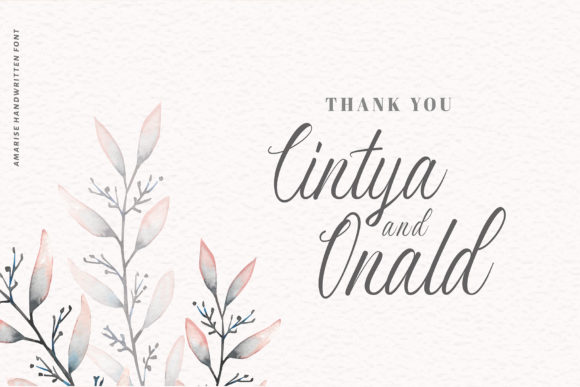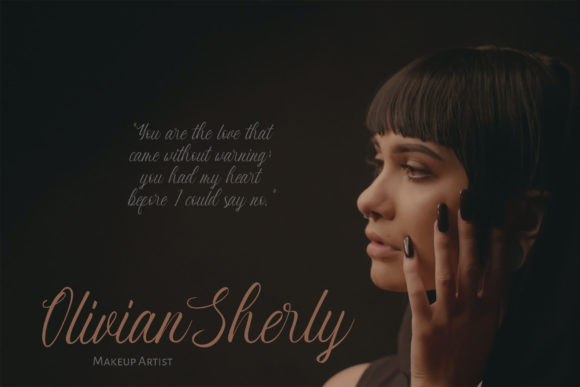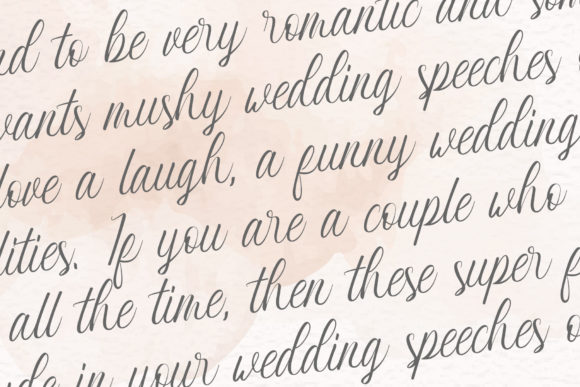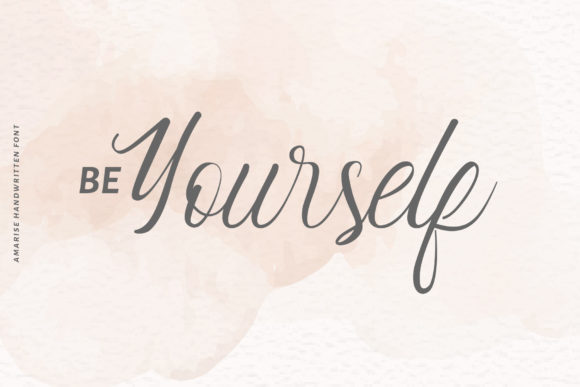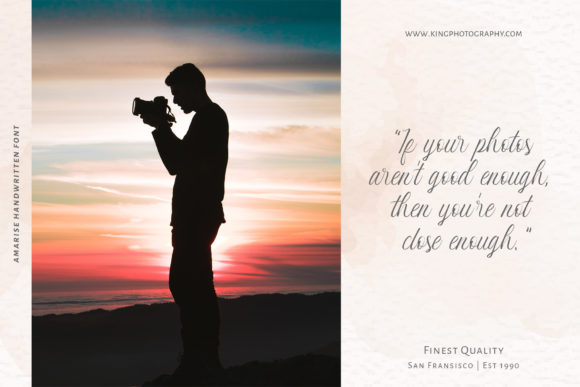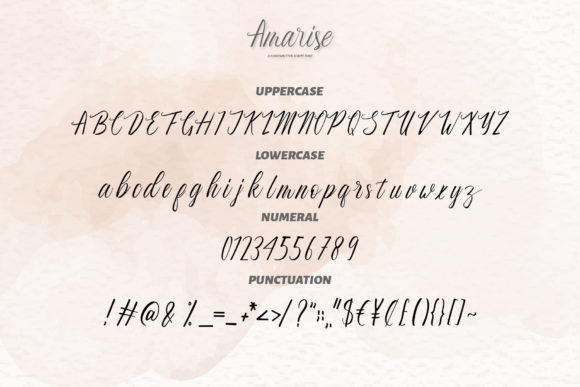
Introducing Amarise Font: Elevate Your Designs with Elegance and Sophistication
In the world of typography, a font can make or break a design. For designers and crafters looking to add a touch of elegance and sophistication to their projects, Amarise Font is an excellent choice. This stylish and dainty script font is perfect for a wide range of applications, from logos and branding projects to labels, photography, watermarks, and special events.
The Characteristics of Amarise Font
Amarise Font is a beautifully crafted script font that exudes refinement and poise. Its delicate strokes and intricate details make it an ideal choice for designers seeking to create visually stunning projects. Here are some of the key characteristics that make Amarise Font stand out:
- Stylish and Dainty: Amarise Font boasts a stylish and dainty appearance, making it perfect for projects that require a touch of elegance.
- Script Font: As a script font, Amarise features flowing connections between letters, creating a beautiful and harmonious visual effect.
- Versatile: This font is suitable for a wide range of projects, from logos and branding to labels, photography, and special events.
Uses of Amarise Font
Amarise Font is an incredibly versatile font that can be used in various design projects. Here are some of the ways you can utilize this beautiful script font:
- Labels and Packaging: Add a touch of sophistication to your product labels and packaging with Amarise Font.
- Photography: Use Amarise Font to create beautiful watermarks or add text to your photographs.
- Special Events: Make your special events, such as weddings or anniversaries, even more memorable with custom invitations and decor featuring Amarise Font.
- Crafting and DIY Projects: Add a personal touch to your crafting and DIY projects, such as handmade cards or gift tags, with Amarise Font.
Why Choose Amarise Font?
With so many fonts available, why choose Amarise Font for your design projects? Here are some compelling reasons:
- Elegance and Sophistication: Amarise Font adds a touch of elegance and sophistication to any design project.
- Unique and Eye-Catching: This font’s unique and eye-catching design ensures that your projects stand out from the crowd.
- Easy to Read: Despite its delicate appearance, Amarise Font is easy to read, making it perfect for body text and headings.
- High-Quality: Amarise Font is a high-quality font that is designed to deliver exceptional results in various design projects.
Tips for Using Amarise Font Effectively
To get the most out of Amarise Font, here are some tips for using it effectively in your design projects:
- Pair with Other Fonts: Experiment with pairing Amarise Font with other fonts to create a unique and visually appealing combination.
- Adjust Font Size: Adjust the font size to achieve the desired effect, from large headings to smaller body text.
- Use in Combination with Images: Use Amarise Font in combination with images to create a beautiful and harmonious visual effect.
- Experiment with Colors: Experiment with different colors to find the perfect match for your design project.
Amarise Font is a beautiful and versatile script font that is perfect for designers and crafters looking to add a touch of elegance and sophistication to their projects. With its stylish and dainty appearance, this font is suitable for a wide range of applications, from logos and branding to labels, photography, and special events. By choosing Amarise Font, you can elevate your designs and create visually stunning projects that leave a lasting impression.